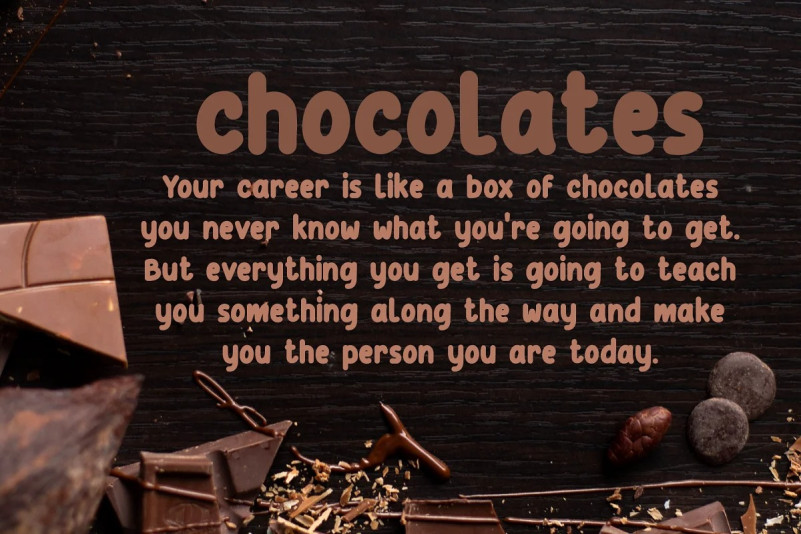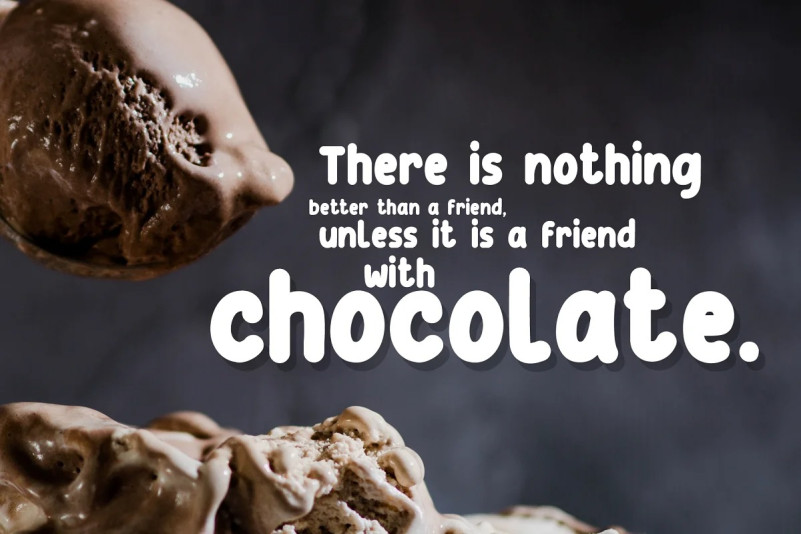
Leemu Font
Leemu Font is a font that will make your design looks bold, modern, unique and fun. Perfect for playful kids font with cartoon style. This font is specially crafted for children, Kids, Boys, Kindergarten, Birthday, and Comic purposes. Big Boss font has a unique glyph and fun style.